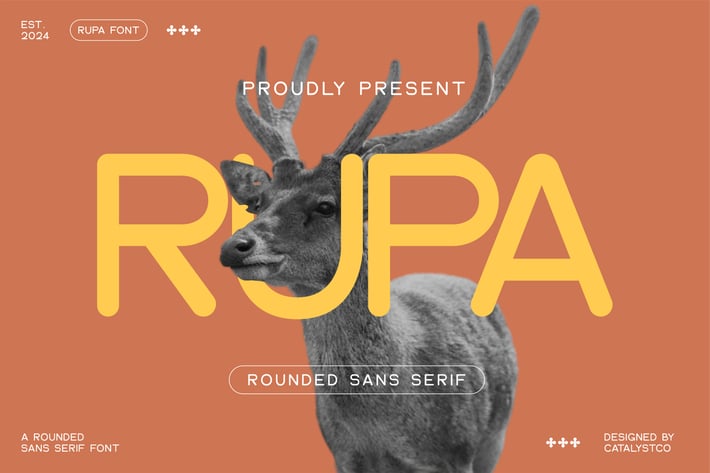
Rupa Sans Serif Rounded Font
Rupa is a modern rounded sans serif font that blends soft geometric curves with clean minimalist structure, creating a friendly and contemporary aesthetic. Its smooth letterforms and consistent stroke balance make it highly versatile for logos, headlines, interface design, editorial layouts, and modern brand identities. Crafted with clarity and approachability, Rupa delivers a polished professional look while maintaining a playful rounded charm. Comes with uppercase, lowercase, numbers, punctuation, and multilingual support for a complete design experience.
Rupa is perfect for modern branding, logo design, packaging, tech interfaces, editorial layouts, social media graphics, minimalist posters, product design, lifestyle branding, and any creative project that needs a clean, smooth, and contemporary rounded sans serif aesthetic.
Main Features
* Numeral & Punctuations